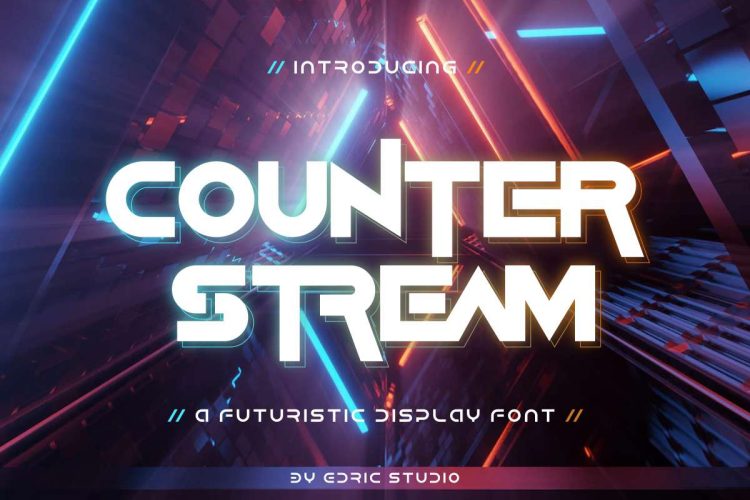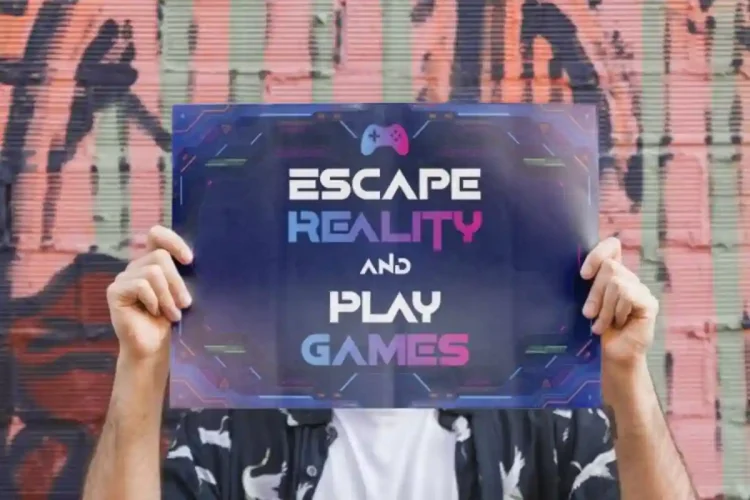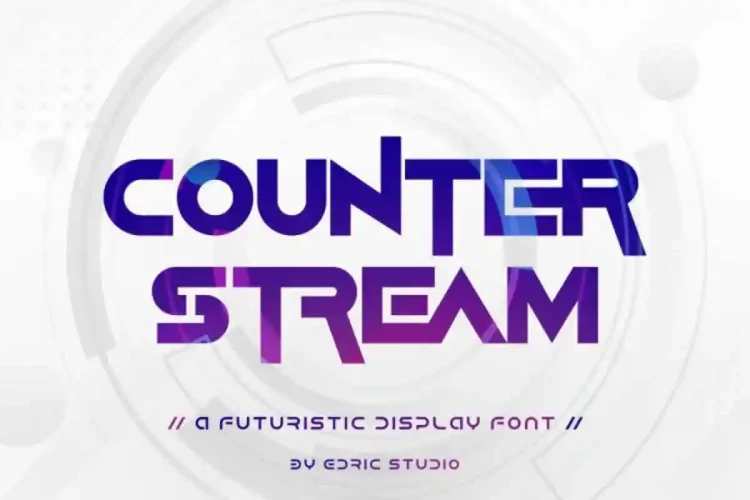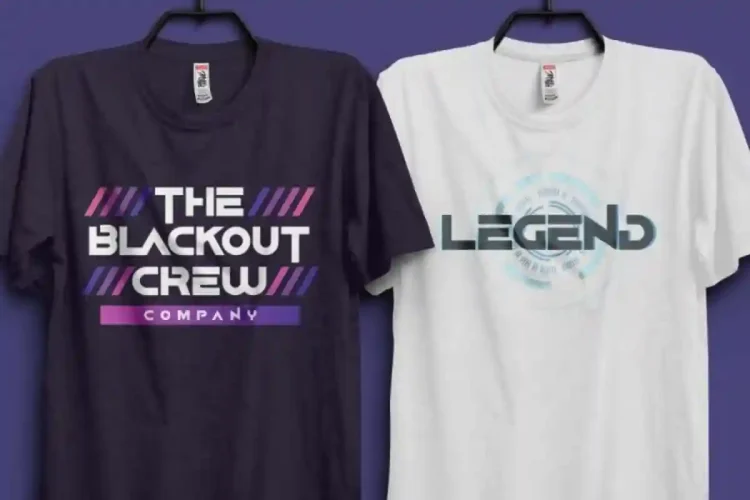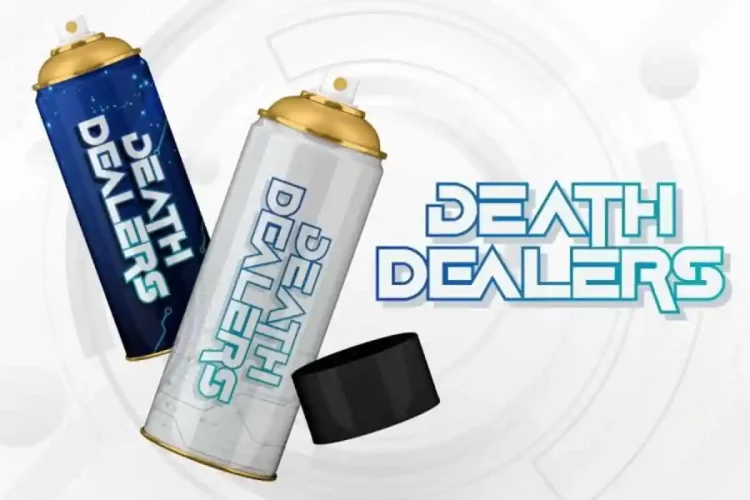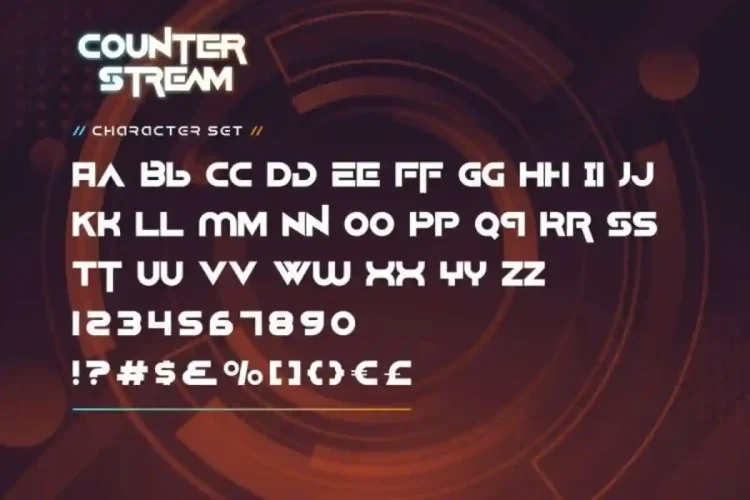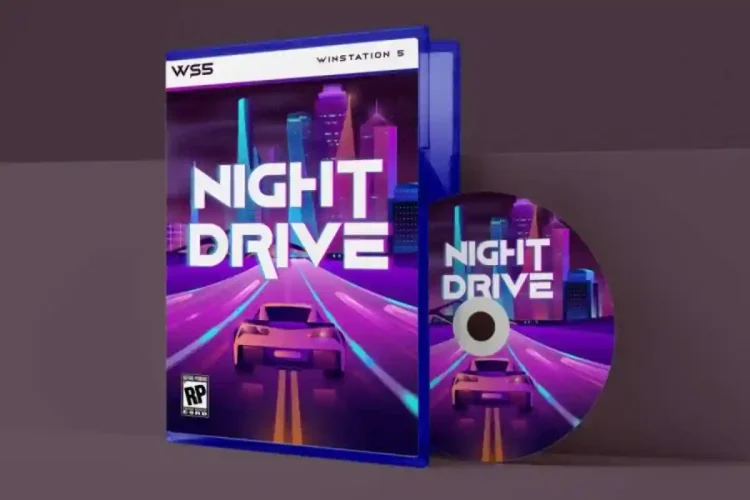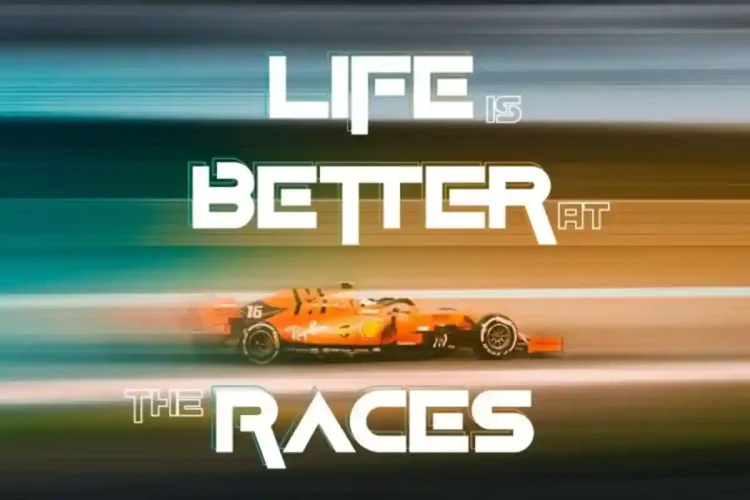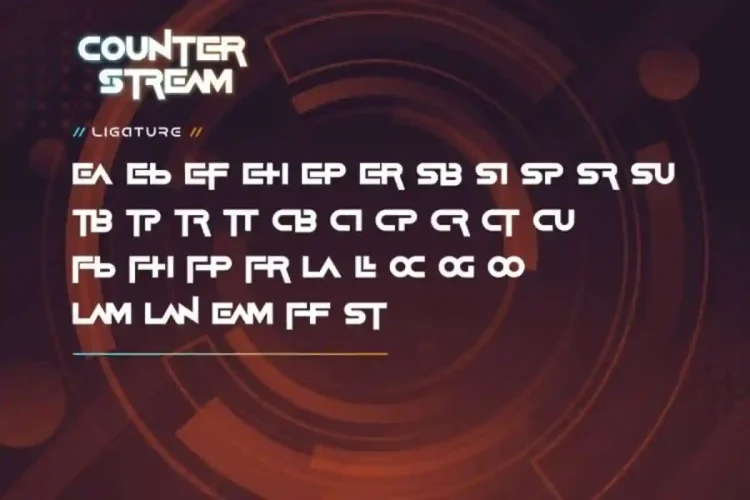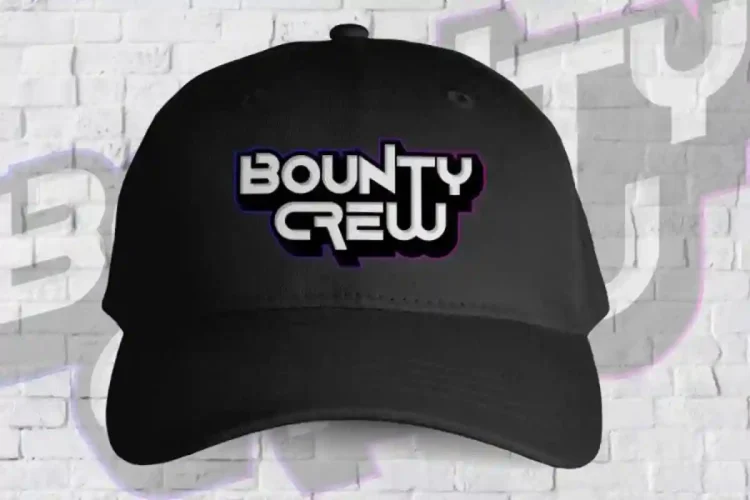
Counter Stream Display Font
Counter Stream Display Font inspired by the virtual world of the Metaverse and the rapid growth of modern technology, this font brings innovation, speed, and style to every project. Almost all industries will be match for this typeface including: apparel, automotive, electronic, fashion, game, race, technology, etc.
Counter Stream Display Font it has a stunning characters set, perfectly managed with well spaced and kerning. Counter Stream Display Font will be great for any projects (with extended license) including: billboard, blog header, brand logo, embroidery design, headline, printed materials, poster, product packaging, quote, etc.
Counter Stream Display Font is a playful typeface with unique decoration in each character. Counter Stream Font has been tested for compatibility with Adobe Illustrator, Photoshop, InDesign, and even Microsoft Word. PUA Encode Characters means you can access all the glyphs and other additional characters easily – Fully accessible without additional design software.